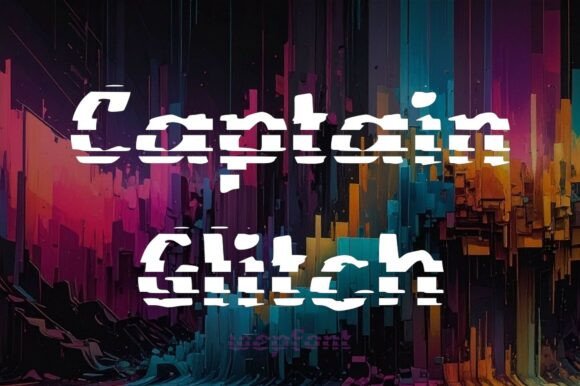
Introducing Captain Glitch: The Font that Embodies Digital Disorder and Futuristic Elegance
In the vast expanse of digital typography, there exist fonts that not only complement a design but transform it. Captain Glitch is one such distinctive display font that blurs the lines between letters and pixels, giving life to a fragmented, pixel-inspired aesthetic. This font is your key to embarking on a typographical journey through the landscape of digital disorder and futuristic elegance.
The Essence of Captain Glitch
Captain Glitch boasts a fractured and weaving aura that echoes data corruption. Its fractured lines inject an edgy modern vitality into any creation, making it suitable for a variety of innovative projects. From cyberpunk to digital art, gaming themes to electro music, Captain Glitch speaks the language of modernity and innovation. The font’s unique design elements make it a visual marvel that infuses your projects with a compelling technology-infused charm.
Unleash Your Creativity with Captain Glitch
Whether you’re curating a tech brand image, setting up signage for a music festival, designing compelling video game titles, or creating cutting-edge fashion graphics, Captain Glitch accentuates and amplifies your message. The font’s versatility allows it to seamlessly integrate into various design projects, including:
- Cyberpunk and Sci-Fi Projects: Add a touch of digital disorder to your futuristic designs with Captain Glitch’s pixel-inspired aesthetic.
- Digital Art and Graphics: Infuse your digital art with a modern and edgy vibe using Captain Glitch’s fractured lines and weaving aura.
- Gaming Themes: Create compelling video game titles and in-game text with Captain Glitch’s futuristic and pixel-inspired design.
- Electro Music and Festivals: Set up signage and promotional materials for music festivals and events with Captain Glitch’s bold and eye-catching aesthetic.
- Fashion Graphics: Add a touch of modernity and innovation to your fashion graphics with Captain Glitch’s unique design elements.
Why Choose Captain Glitch?
Captain Glitch is more than just a font – it’s a visual statement that sets your design apart from the rest. Here are a few reasons why you should consider using Captain Glitch in your next project:
- Unique Aesthetic: Captain Glitch’s fractured lines and pixel-inspired design create a distinctive look that’s hard to replicate with other fonts.
- Versatility: The font’s versatility allows it to seamlessly integrate into various design projects, from digital art to gaming themes.
- Modern and Edgy: Captain Glitch injects an edgy modern vitality into any creation, making it perfect for designers and crafters looking to push the boundaries of digital typography.
Captain Glitch is a game-changer in the world of digital typography. Its unique design elements, versatility, and modern aesthetic make it an essential tool for designers and crafters looking to create innovative and visually striking projects. Whether you’re looking to add a touch of digital disorder or futuristic elegance to your design, Captain Glitch is the perfect font for you. So, embark on a typographical journey through the landscape of digital disorder and futuristic elegance with Captain Glitch – your key to unlocking a world of creative possibilities.